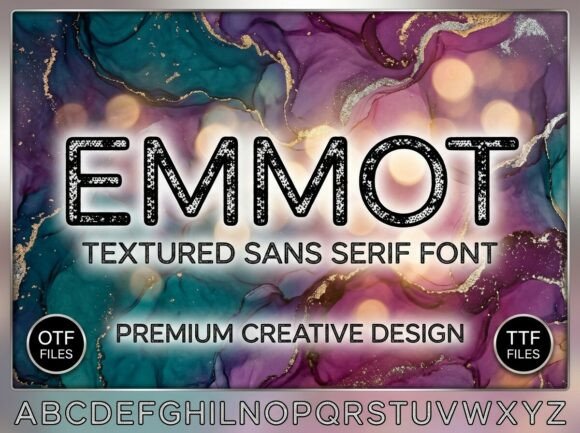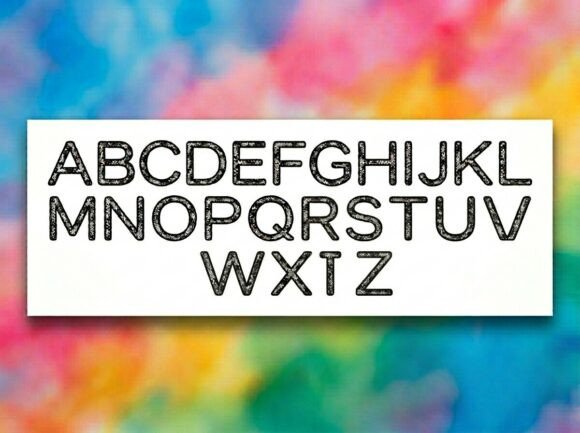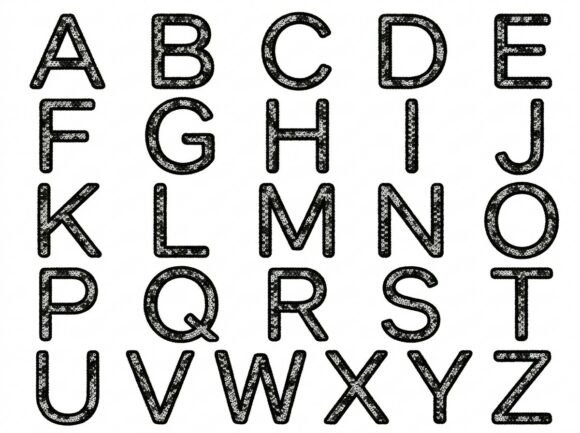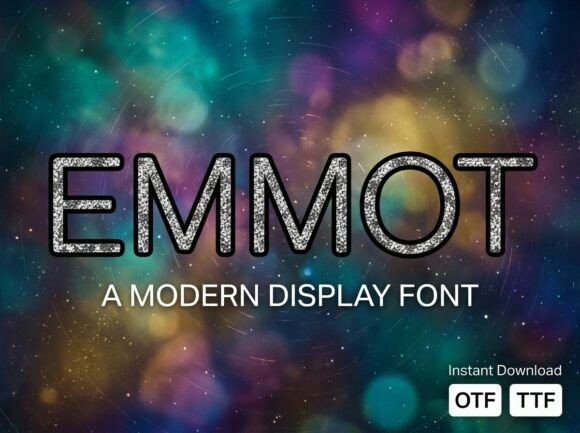
Introducing Emmot Font: A Stunning Decorative Display Font
Are you tired of using the same old fonts for your designs? Do you want to add a touch of uniqueness and creativity to your work? Look no further than Emmot Font, a decorative display font that is sure to turn heads. With its artistic elements and strong visual personality, this font is perfect for creators who want to break away from the ordinary.
What Makes Emmot Font Special?
Emmot Font is a versatile decorative display font that is designed to be the center of attention. Its unique artistic elements and strong visual personality make it perfect for a variety of design projects, from bold headlines and artistic logos to creative packaging. Whether you’re a designer, craftsperson, or DIY enthusiast, this font is sure to add a professional and polished finish to your work.
Key Features of Emmot Font
- Unique Artistic Elements: Emmot Font features unique artistic elements that set it apart from other fonts. Each letter is carefully crafted to be a work of art, making it perfect for high-impact headlines, logos, and decorative initials.
- Strong Visual Personality: This font has a strong visual personality that is sure to grab attention. Its bold and eye-catching design makes it perfect for creators who want to make a statement.
- Versatile: Emmot Font is versatile enough for a variety of design projects, from bold headlines and artistic logos to creative packaging.
- Professional and Polished Finish: Despite its bold and artistic design, Emmot Font maintains a professional and polished finish, making it perfect for designers and craftspersons who want to add a touch of sophistication to their work.
⚠️ IMPORTANT NOTE BEFORE PURCHASE: Emmot Font is an ALL-CAPS (Uppercase Only) display typeface. It does not include lowercase letters. It is specifically designed for high-impact headlines, logos, and decorative initials where every letter is a work of art.
Why Choose Emmot Font?
There are many reasons why Emmot Font is the perfect choice for designers and craftspersons. Here are just a few:
- Unique Design: Emmot Font features a unique design that is sure to turn heads.
- Versatility: This font is versatile enough for a variety of design projects.
- Professional Finish: Emmot Font maintains a professional and polished finish, making it perfect for designers and craftspersons who want to add a touch of sophistication to their work.
- Use it for Headlines: Emmot Font is perfect for bold headlines and titles.
- Use it for Logos: This font is also great for artistic logos and branding.
- Use it for Packaging: Emmot Font can add a touch of sophistication to your packaging designs.
Emmot Font is a stunning decorative display font that is sure to add a touch of uniqueness and creativity to your designs. With its artistic elements and strong visual personality, this font is perfect for creators who want to break away from the ordinary. Whether you’re a designer, craftsperson, or DIY enthusiast, Emmot Font is a great choice for anyone looking to add a professional and polished finish to their work.